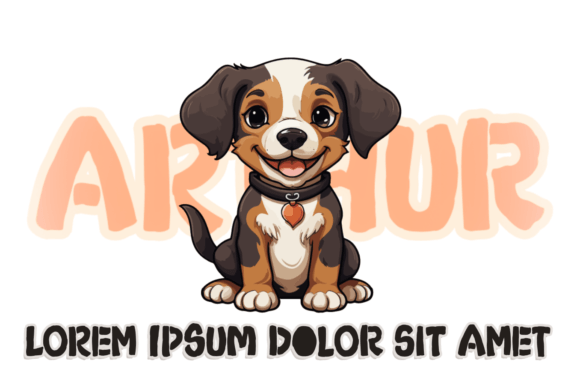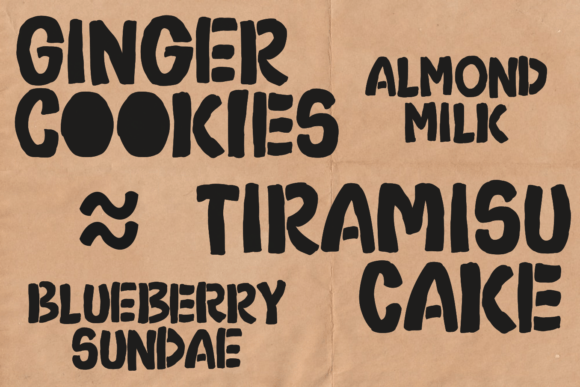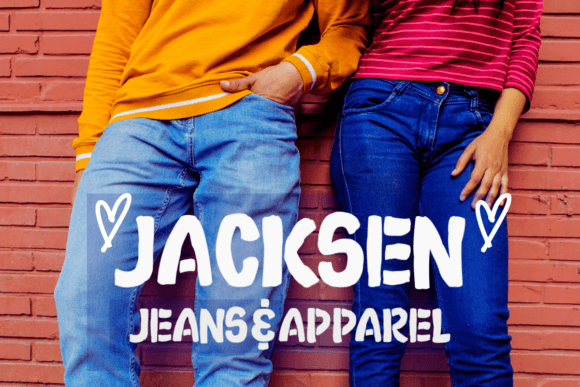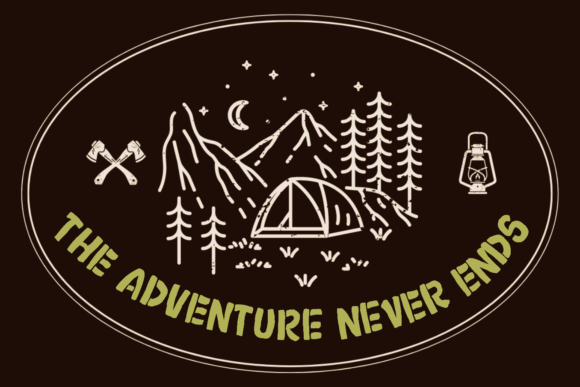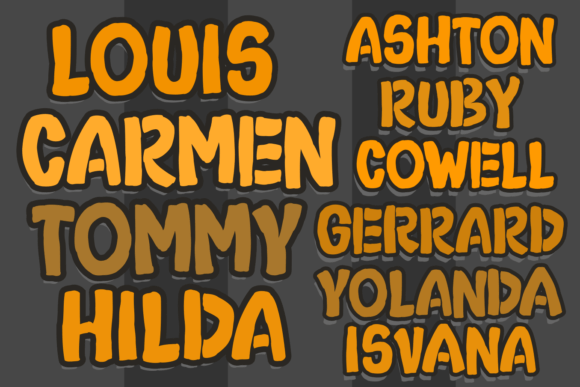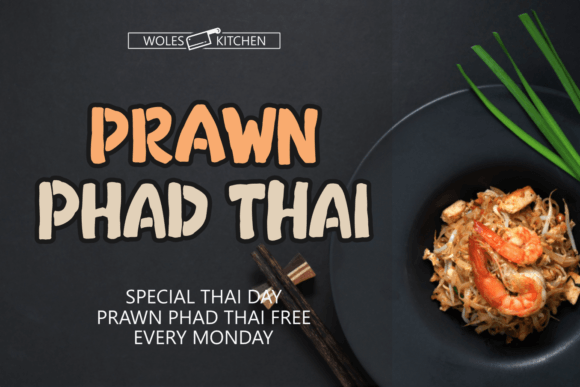
Introducing Bandots Font: The Ultimate Display Font for Creative Projects
Are you tired of using the same old fonts for your design projects? Look no further than Bandots Font, a cool display font that combines rough and stencil styles to create a unique and versatile typeface. Whether you’re a designer, crafter, or simply someone who loves to get creative, Bandots Font is sure to become your new go-to font for all occasions.
What is Bandots Font?
Bandots Font is a display font that boasts a distinctive rough and stencil style. Its bold and edgy appearance makes it perfect for a wide range of creative projects, from digital designs and presentations to crafts and greeting cards. The font’s unique aesthetic is sure to grab attention and add a touch of personality to any design.
Key Features of Bandots Font
- Unique Style: Bandots Font features a one-of-a-kind rough and stencil style that sets it apart from other fonts.
- Versatility: This font is perfect for a wide range of creative projects, including digital designs, presentations, crafts, and greeting cards.
- Easy to Read: Despite its bold and edgy appearance, Bandots Font is surprisingly easy to read, making it perfect for both headings and body text.
- High-Quality Design: Bandots Font is designed with high-quality and precision, ensuring that it looks great in any size or format.
Uses for Bandots Font
So, what can you use Bandots Font for? The possibilities are endless! Here are a few ideas to get you started:
- Digital Designs: Use Bandots Font to add a touch of personality to your digital designs, such as social media graphics, blog posts, and website headers.
- Crafts: Bandots Font is perfect for crafters who love to make handmade cards, scrapbook pages, and other paper crafts.
- Presentations: Add some edge to your presentations with Bandots Font, which is sure to grab the attention of your audience.
- Greeting Cards: Use Bandots Font to create unique and personalized greeting cards for any occasion.
Why Choose Bandots Font?
So, why should you choose Bandots Font over other fonts? Here are just a few reasons:
- Unique Style: Bandots Font offers a unique and distinctive style that will set your designs apart from the crowd.
- Versatility: This font is versatile and can be used for a wide range of creative projects.
- High-Quality: Bandots Font is designed with high-quality and precision, ensuring that it looks great in any size or format.
Tips and Tricks for Using Bandots Font
Here are a few tips and tricks for getting the most out of Bandots Font:
- Experiment with Different Sizes: Bandots Font looks great in a variety of sizes, so don’t be afraid to experiment and find the perfect size for your design.
- Pair it with Other Fonts: Bandots Font pairs well with other fonts, so try combining it with a script font or a sans-serif font for a unique look.
- Use it for Headings: Bandots Font is perfect for headings and titles, so use it to add a touch of personality to your design.
| Font Name | Bandots Font |
| Author | Deedeetype |
In conclusion, Bandots Font is a unique and versatile display font that is perfect for a wide range of creative projects. Its bold and edgy appearance makes it sure to grab attention, while its ease of use and high-quality design make it a joy to work with. Whether you’re a designer, crafter, or simply someone who loves to get creative, Bandots Font is sure to become your new go-to font.